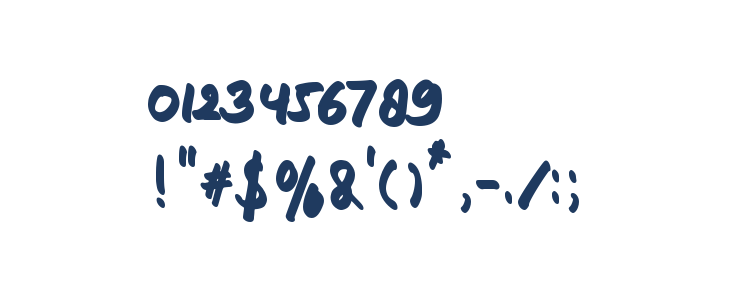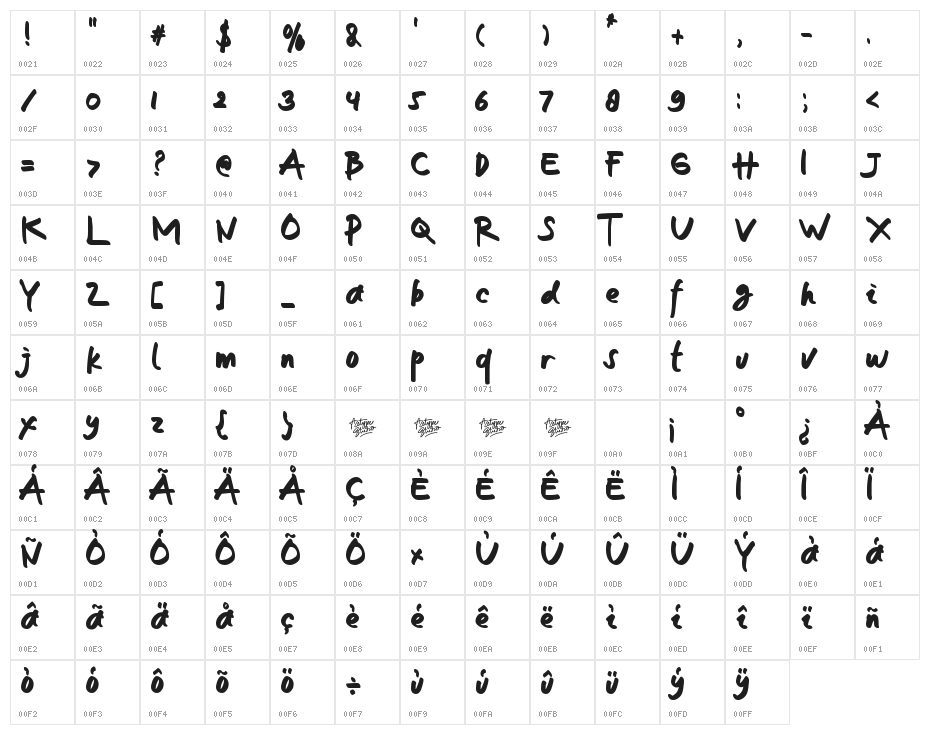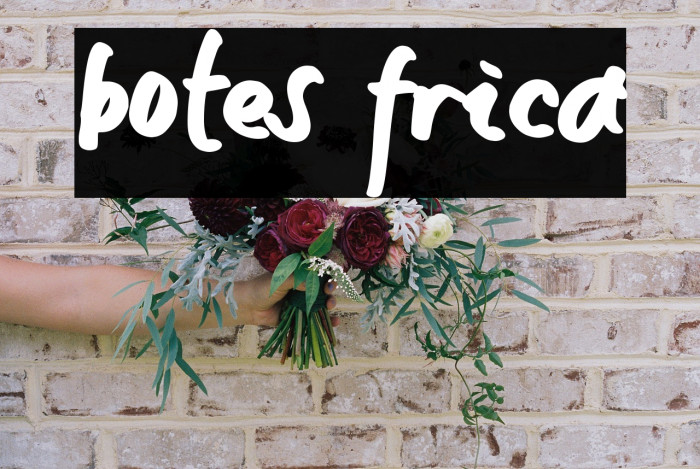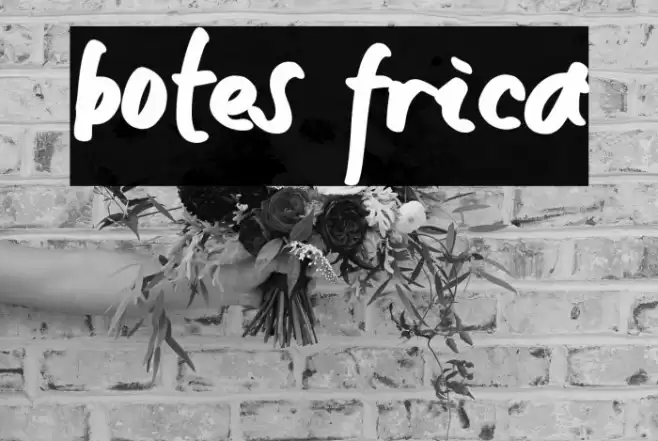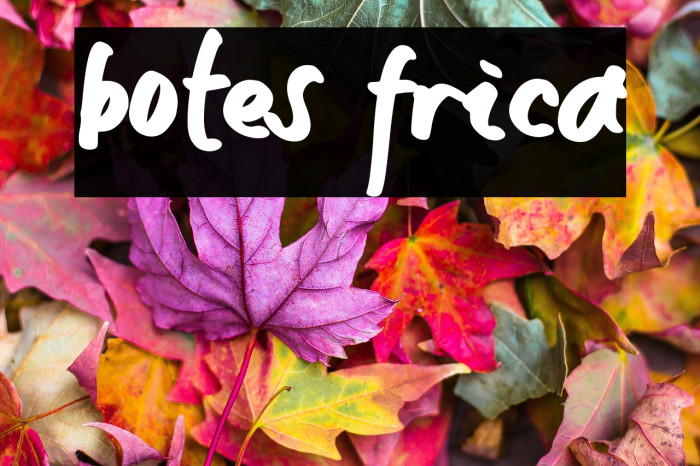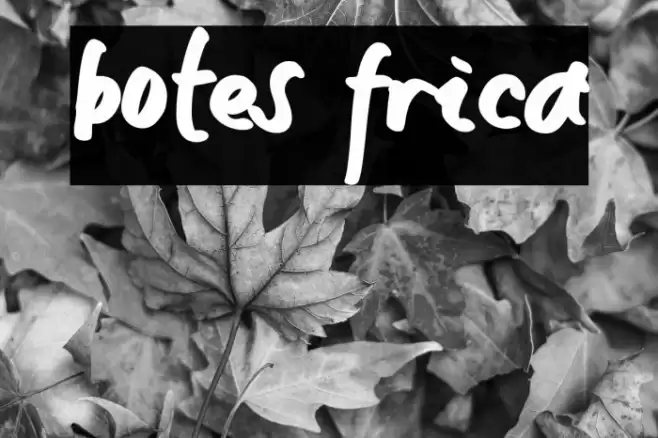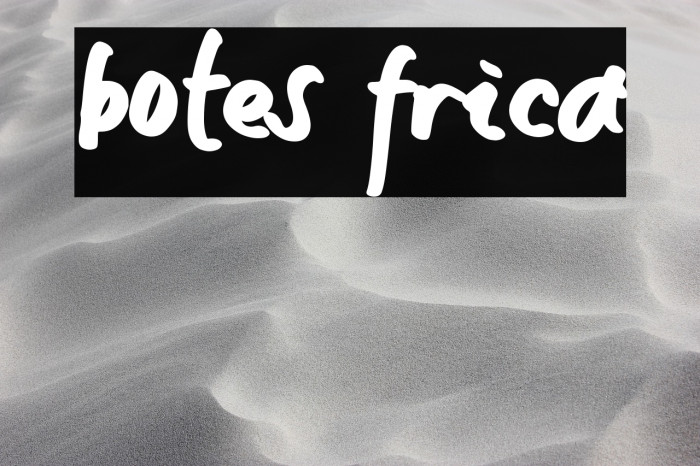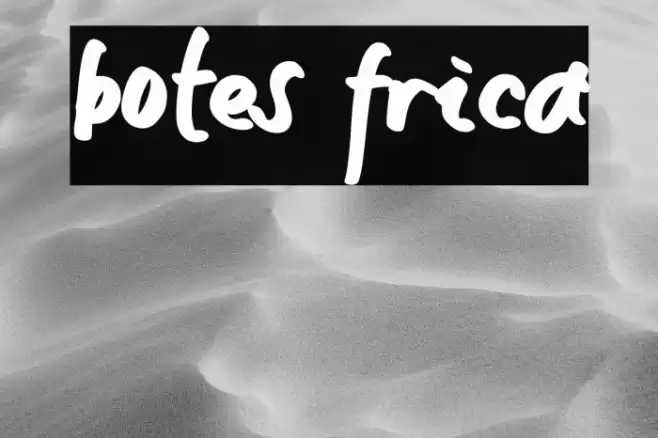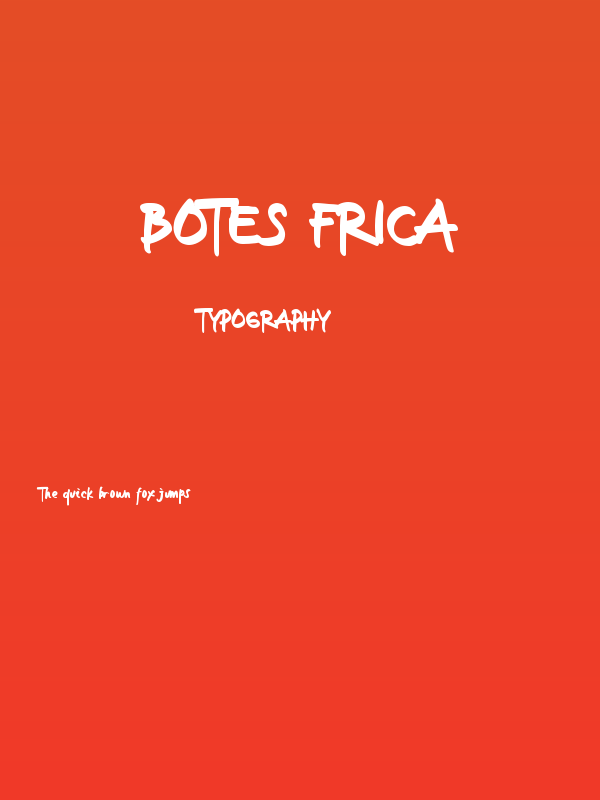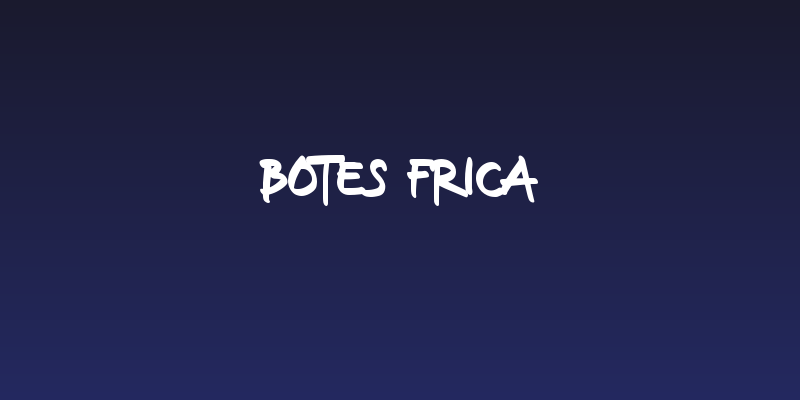
botes frica Font
botes frica Description
This font features a bold and energetic handwritten style, characterized by its thick strokes and playful curves. The letters are slightly slanted, adding a dynamic feel to the text. The uppercase and lowercase letters maintain a consistent style, with rounded edges and a casual appearance. The numbers and special characters follow the same design, ensuring a cohesive look across all elements. This font's informal and lively nature makes it suitable for projects that require a personal touch or a sense of spontaneity.